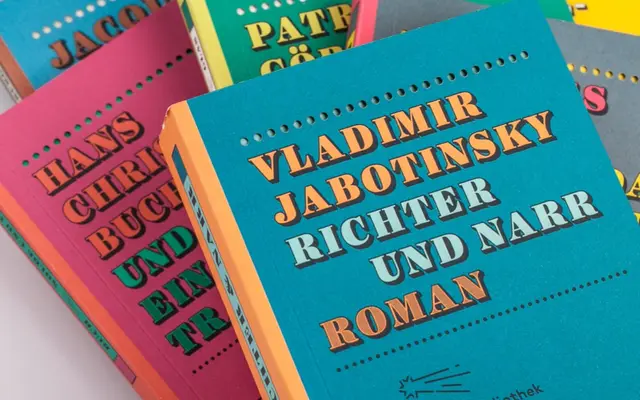
Ingeborg
A ten-style display serif from Typejockeys with a wide weight range from Regular to Fat, including a decorative striped variant.
Ten styles span four weights from Regular to Fat, each with a matching italic, plus a novelty Striped cut that gives the family a decorative dimension. OpenType features include swash caps, figure styles, ligatures and superior and inferior figures, making it capable enough for editorial and identity work. The weight extremes at Heavy and Fat lean into poster and display applications where strong typographic colour is needed.
Ingeborg is a display serif with expressive weight contrast and decorative variants including a striped style, placing it firmly in the display serif category rather than text-optimised roman traditions.